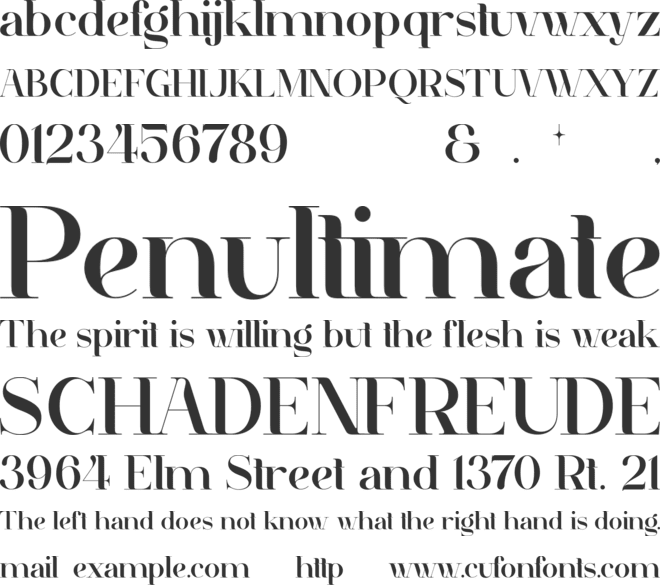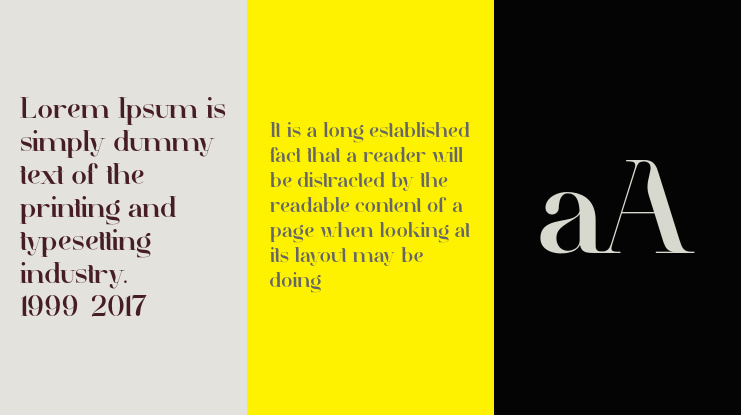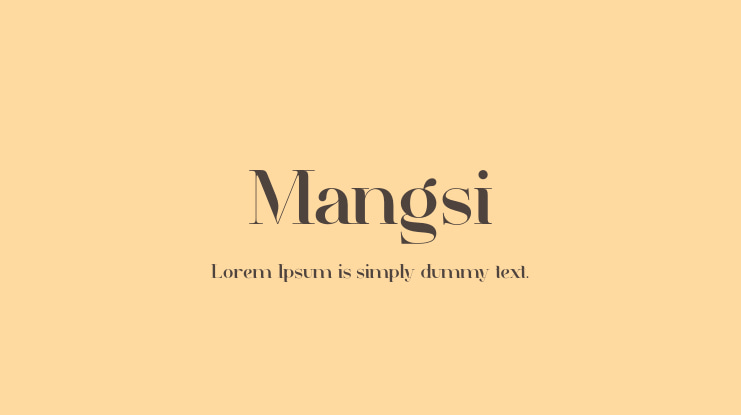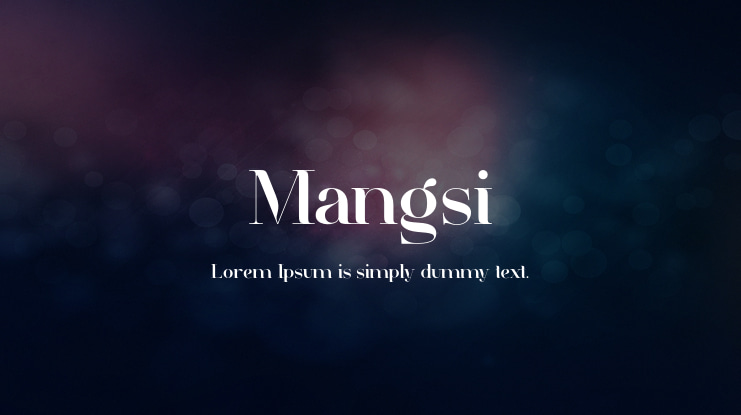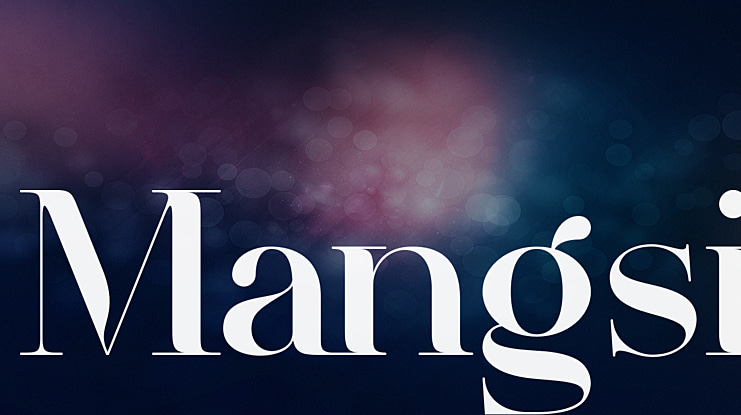
Mangsi Font
A Font by Aluyeah Studio
Mangsi in Javanese means ink. We want to create a modern display typeface with an inked-like feel by combining clean modern serif strokes, brush strokes and the curved line made by the ink tank.
Mangsi is a modern inked display typeface that unites the beauty of the old lines with the clean modern lines. A simple, yet distinctive, elegant font that can be applied to many areas of design. Coming with 170+ stunning and super easy to use alternates and ligatures.